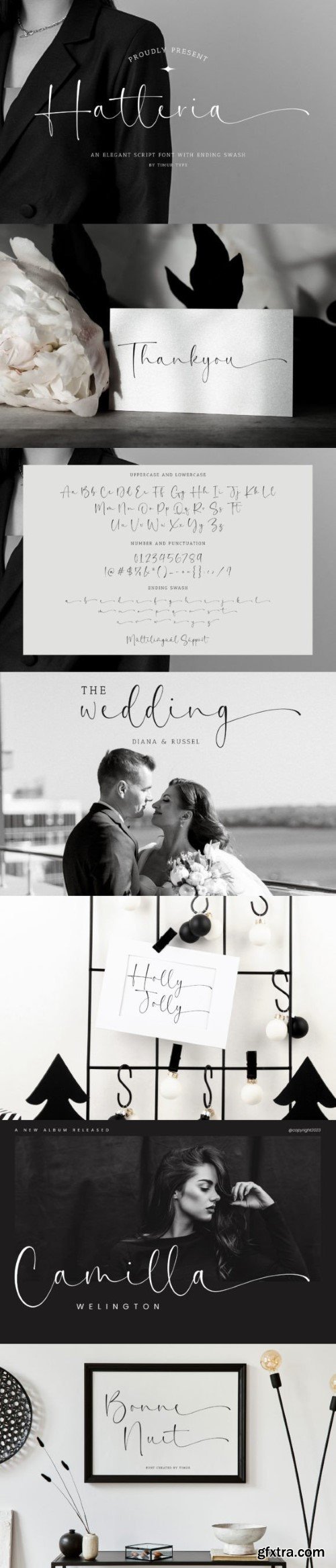
哈特里亚字体
The display font that I created displays small Latin-shaped lines, giving it an elegant and distinctive appearance.
This font resembles Latin hand lines, capturing the essence of personalization and quartering. With its intricate details and subtle strokes, it adds a touch of sophistication and elegant style to any design or text it is applied to.
Its subtle and individualistic nature makes it perfect for creating attention-grabbing titles, logos or other elements that require a personal, handmade touch.
This font resembles Latin hand lines, capturing the essence of personalization and quartering. With its intricate details and subtle strokes, it adds a touch of sophistication and elegant style to any design or text it is applied to.
Its subtle and individualistic nature makes it perfect for creating attention-grabbing titles, logos or other elements that require a personal, handmade touch.